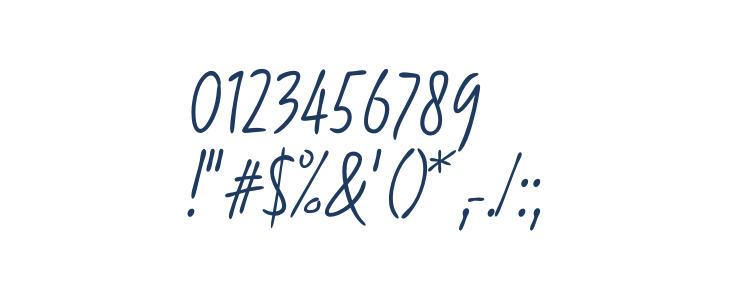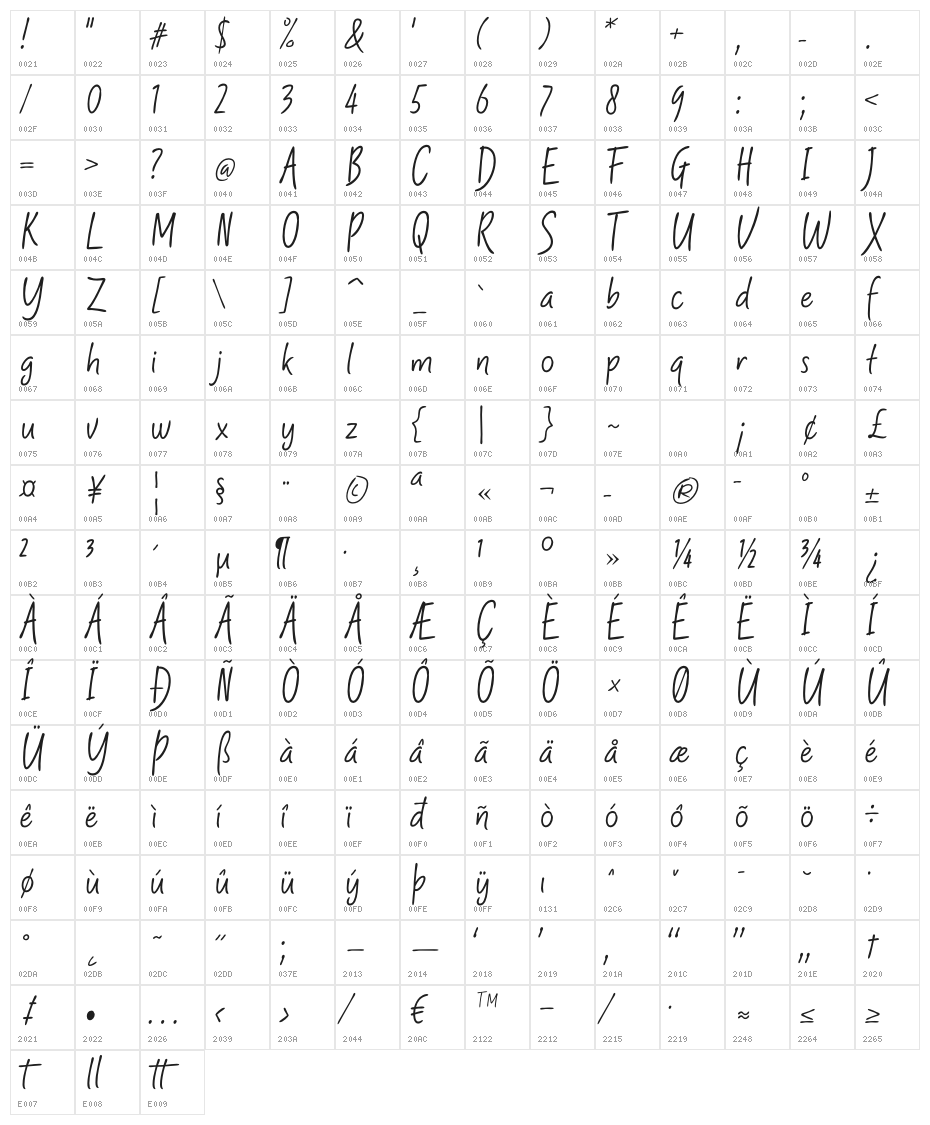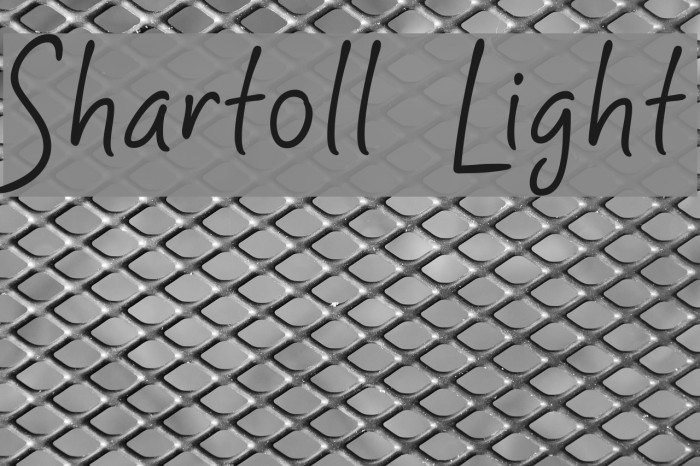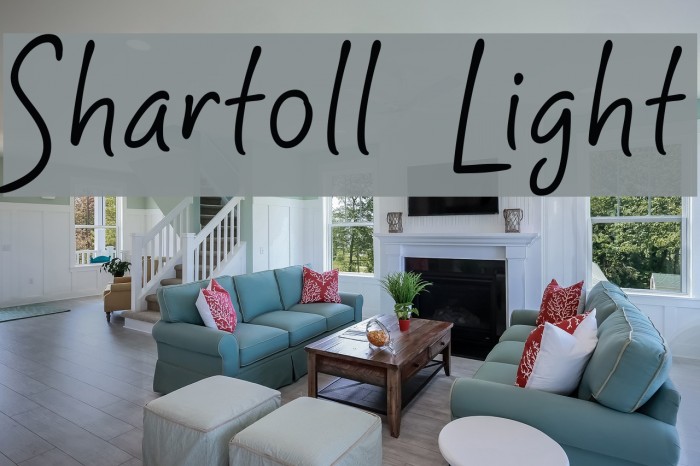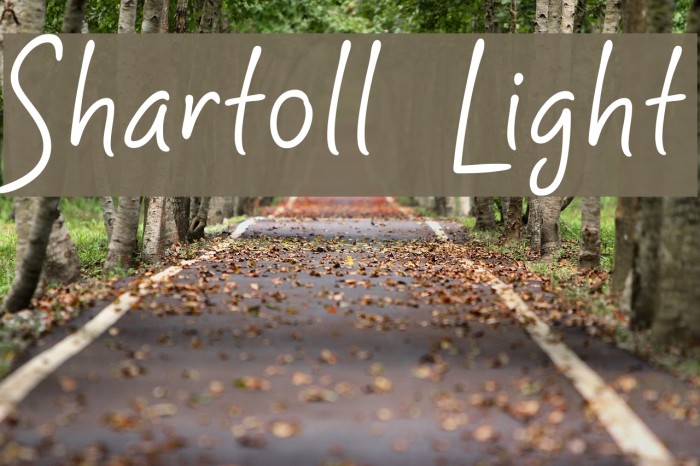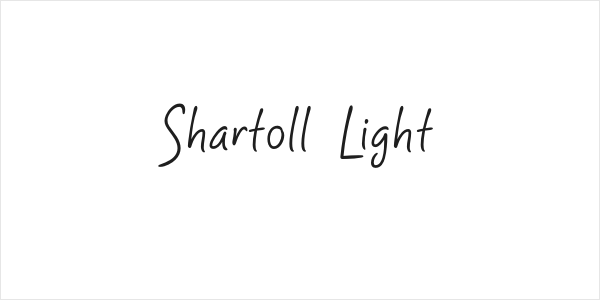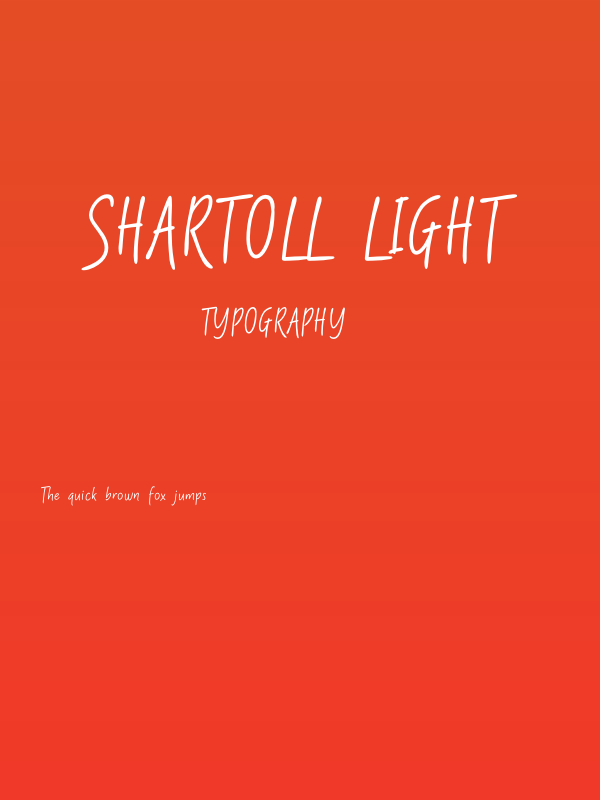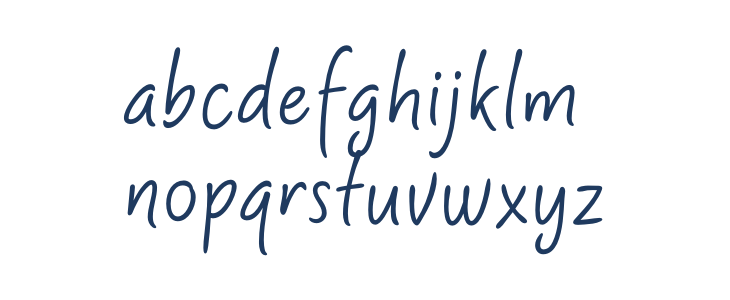
Shartoll Light Font
Shartoll Light Description
This font features a playful and casual handwritten style, characterized by its fluid and slightly irregular strokes. The letters are tall and slender, with a natural flow that mimics the look of handwriting. The uppercase and lowercase letters maintain a consistent style, with a slight slant that adds to the informal and friendly appearance. The numerals and special characters are designed to match the overall aesthetic, ensuring a cohesive look across all text. This font is ideal for projects that require a personal touch, such as invitations, greeting cards, or creative branding.
| Proposed Projects | Ideal for invitations, greeting cards, personal branding, and creative projects. |